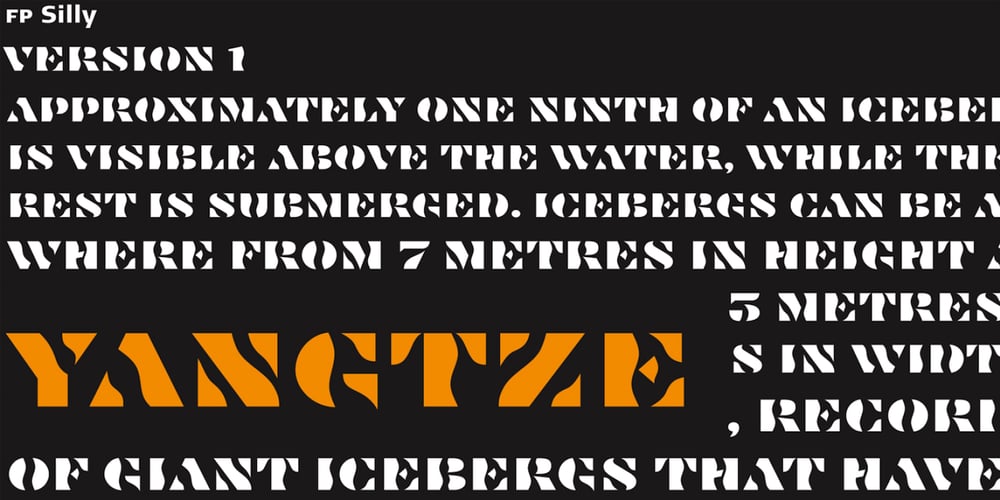
FP Silly Font Family was designed by Ole Berntsen Søndergaard and published by Fontpartners. FP Silly contains 2 styles and family package options. Silly, as the name suggest, is a somewhat silly font with uppercase letters and it is based on the characteristic expression of the stencil shape. FP Silly is available in two versions, with either rounded or angular shapes.